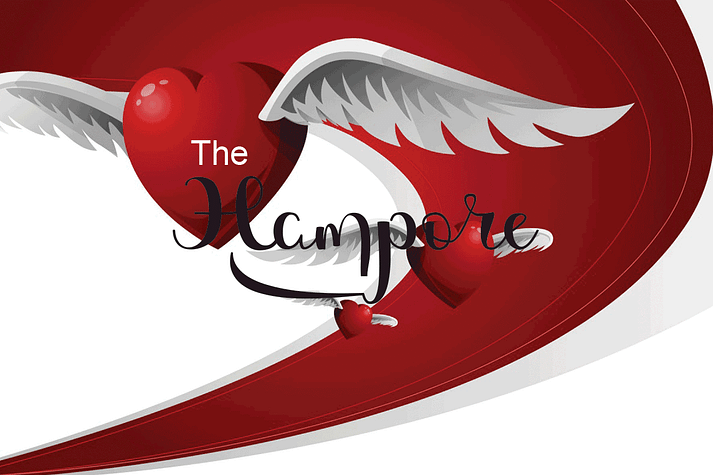
Magdalen
Magdalen is a modern calligraphy font published by RtCreative.
Magdalen Modern Calligraphy. This font was designed by handwriting, and it has a modern and unique form of calligraphy, the writing style is very natural.
The Features of this fonts is;
Standard ligatures
Stylistic Alternates
Contextual Alternates
Stylistic sets
Style Modern Calligraphy